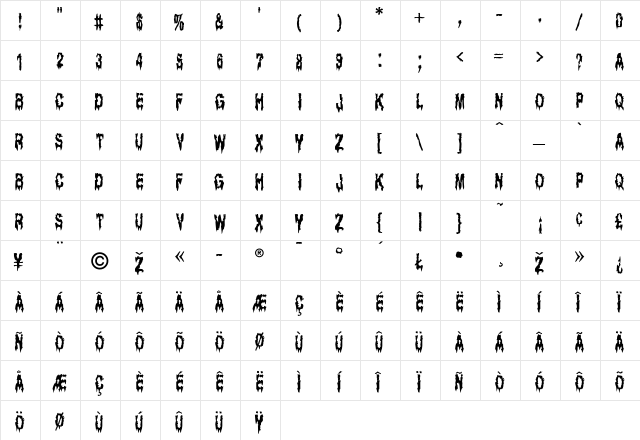
Everglades Regular
Design Context for Everglades Typeface
Everglades is a composed and adaptable typeface that performs quietly and consistently across a wide range of design contexts.